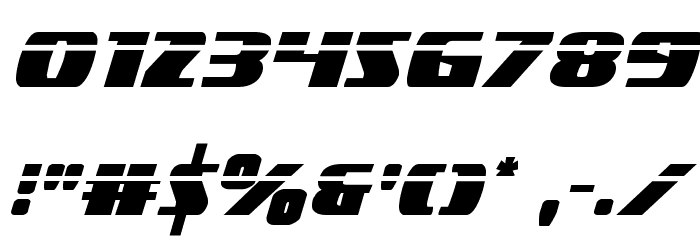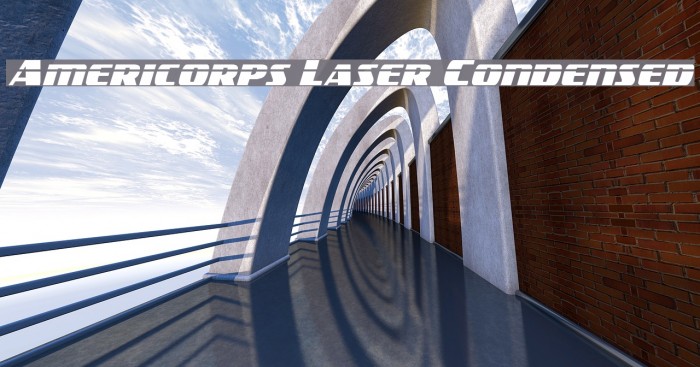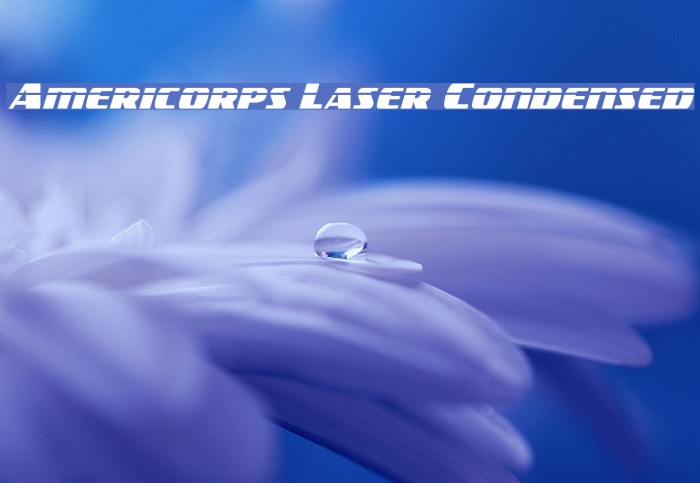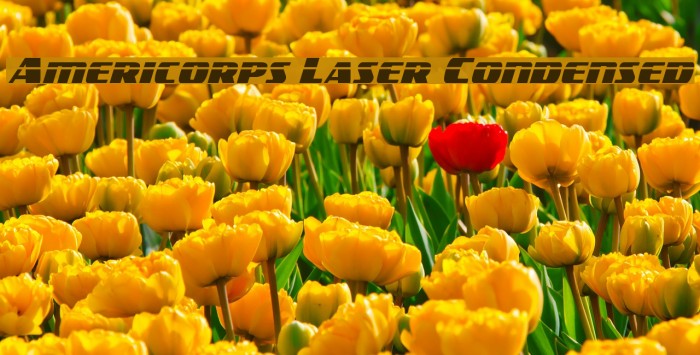
Americorps Laser Condensed Font
This font features a bold, futuristic design with a condensed structure, giving it a sleek and modern appearance. The characters are sharply angled, with a distinct slant that adds a sense of motion and dynamism. The uppercase and lowercase letters maintain a consistent style, with the uppercase being particularly impactful. The numbers and special characters follow the same design principles, ensuring uniformity across all glyphs. The overall aesthetic is reminiscent of digital or sci-fi themes, making it ideal for projects that require a cutting-edge look.
A bold, futuristic, and condensed font with a sleek, modern design.
- Proposed Projects: Ideal for tech-related branding, sci-fi movie posters, video game titles, and futuristic-themed designs.
- Character Spacing: Tight